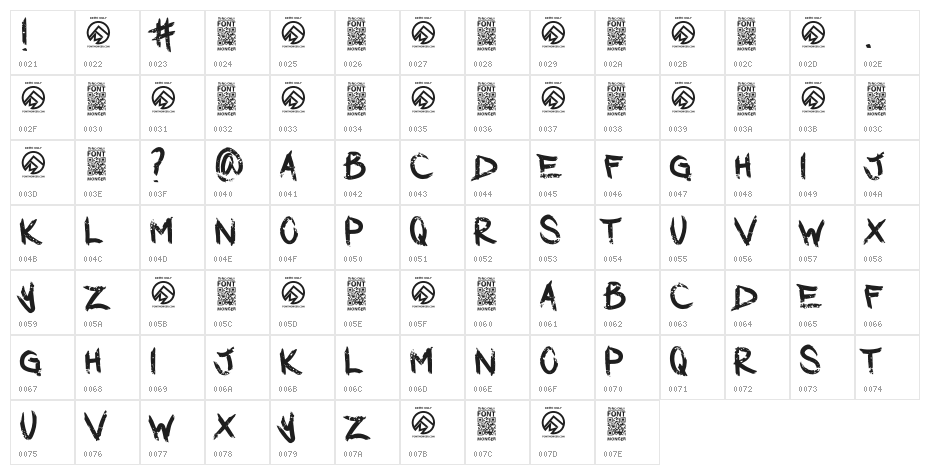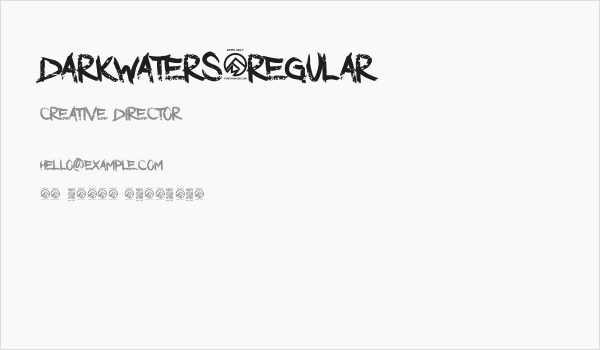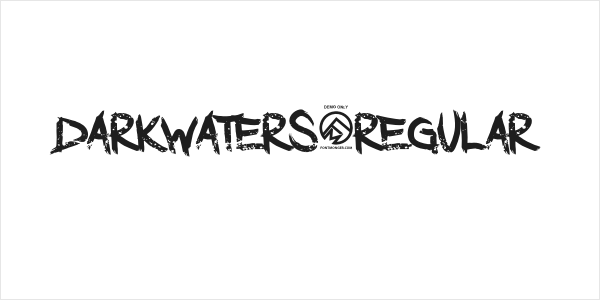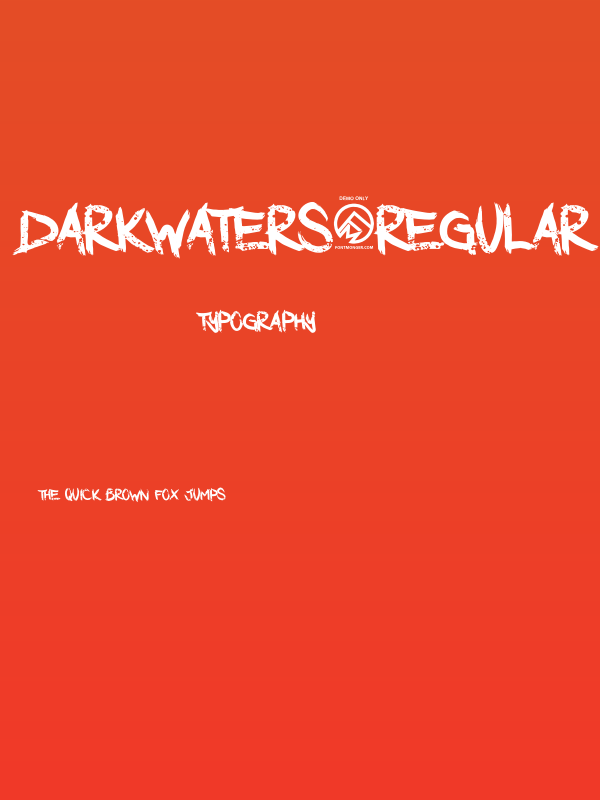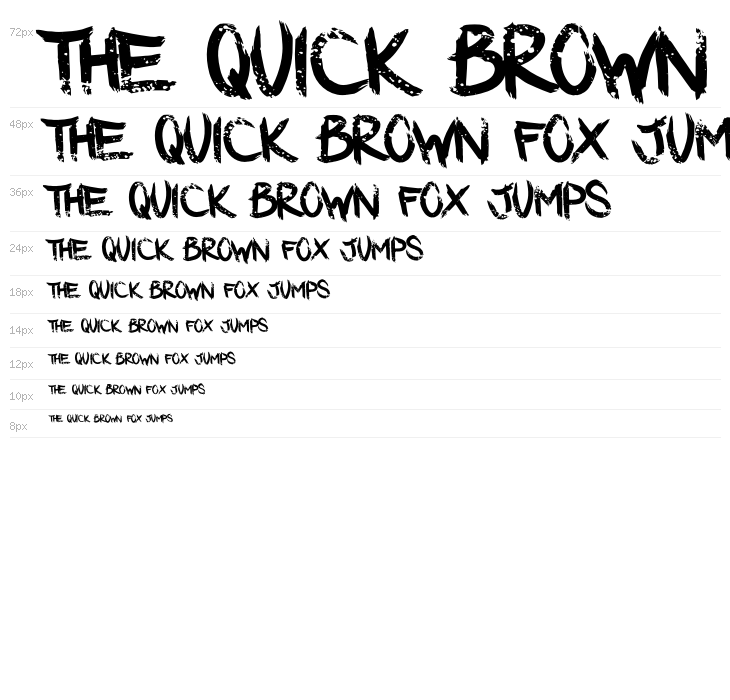
DarkWaters-Regular Font
DarkWaters-Regular Description
This font features a bold and aggressive style with a distressed, grunge appearance. The characters are designed with rough edges and irregular strokes, giving them a raw, hand-painted look. The uppercase and lowercase letters maintain a consistent style, with exaggerated angles and a dynamic flow. The numbers and special characters follow the same aesthetic, ensuring a cohesive look across all text elements. This font is ideal for projects that require a strong, impactful visual presence, such as posters, album covers, or branding for edgy or alternative products.
Proposed ProjectsIdeal for posters, album covers, edgy branding, and alternative product designs.